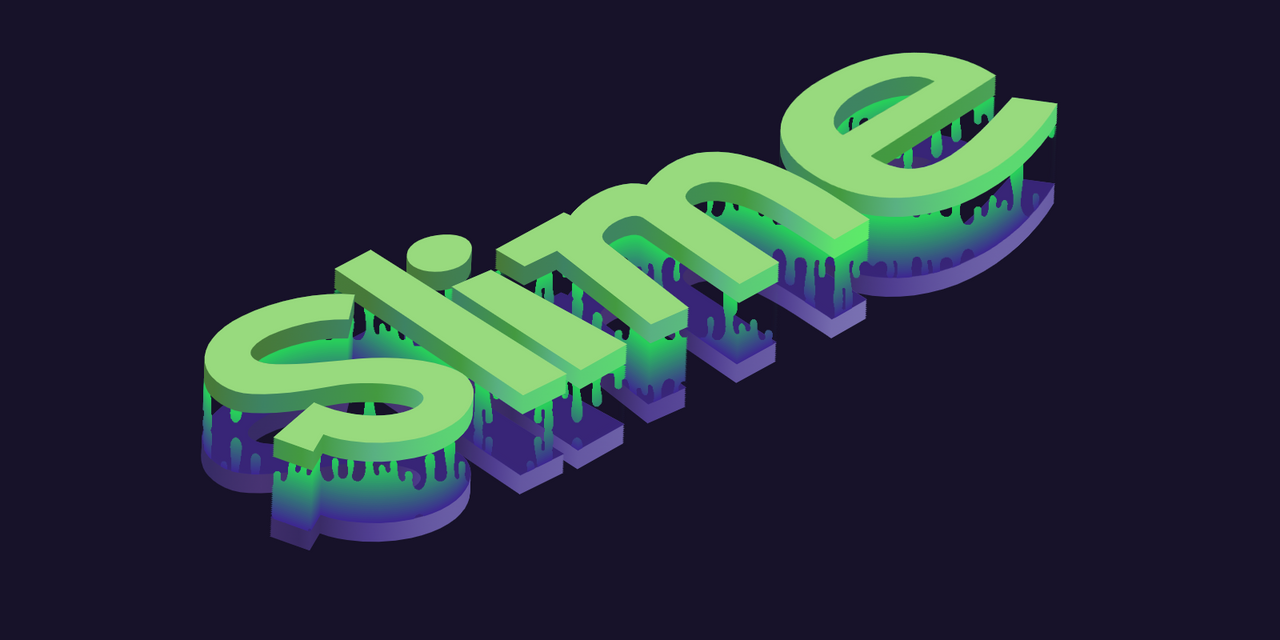
The Slime style 3D font is a unique and eye-catching font that adds a fun and playful element to any typography or polygraphy project. This font features a bold and chunky design with a slimy texture that resembles ooze or slime.
The Slime style 3D font is perfect for creating attention-grabbing headlines, posters, logos, and more. Its bold and distinctive design makes it easy to read even from a distance, making it an excellent choice for outdoor advertising.
In addition to its unique design, the Slime style 3D font is also highly customizable. Users can adjust the size, color, and texture of the font to create a customized look that perfectly suits their project.
To make it even easier to use, there is a Slime text generator available that allows users to quickly and easily create slime-style text for their typography and polygraphy projects. This tool is simple to use, and users can easily adjust the font style, color, and texture to create a look that perfectly matches their design needs.
Overall, the Slime style 3D font and Slime text generator are excellent tools for anyone looking to add a unique and playful touch to their typography and polygraphy projects. With its fun and slimy design, this font is sure to make any text stand out and grab attention.